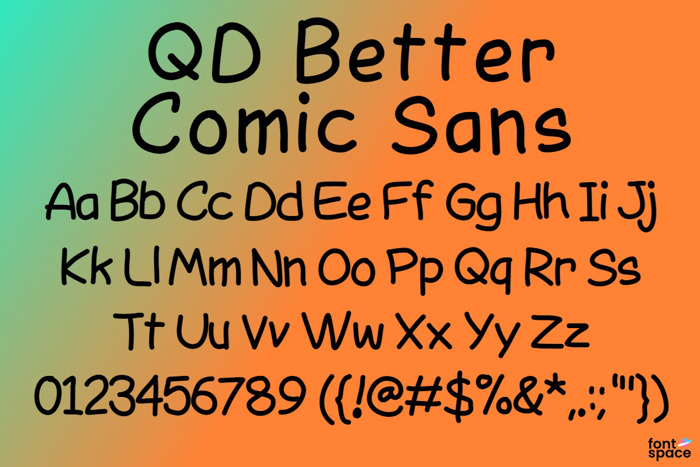
QD Better Comic Sans Font
This is my attempt to make a new Comic Sans without being a flat-out normal font like Comic Neue. The alternates add a more Quinn Hand-esque 1 and 3